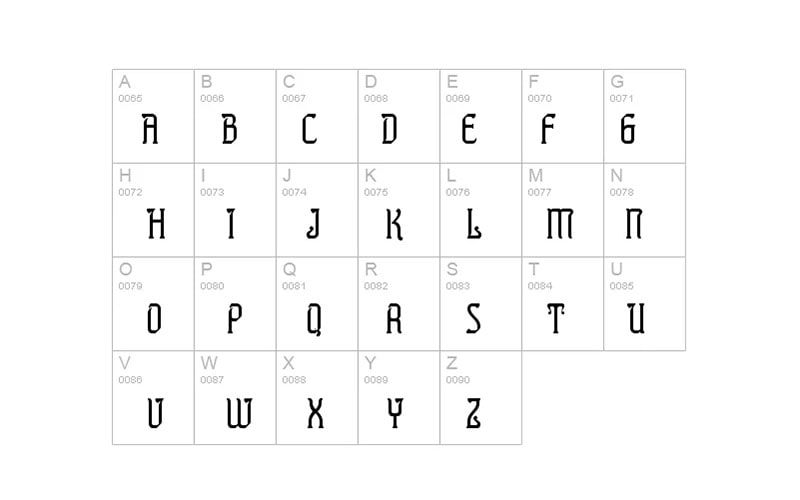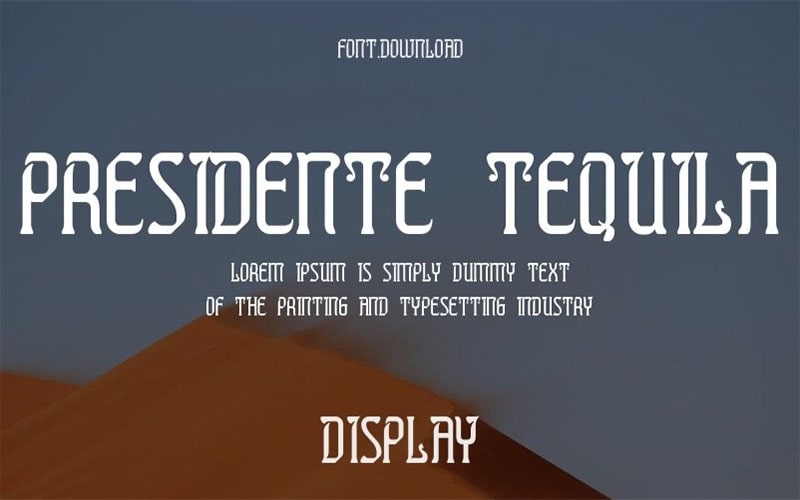
Presidente Tequila Font is an exquisite typeface that embodies sophistication and versatility, making it an ideal choice for a wide range of design applications.
It was designed by a talented typeface artist renowned for creating sophisticated and elegant fonts No Images Fonts.
The inspiration for Presidente Tequila Font comes from a blend of traditional and modern design elements, aiming to create a typeface that is both timeless and contemporary.
This Font family includes a variety of styles such as Presidente Tequila Regular, Presidente Tequila Bold, Presidente Tequila Italic, and Presidente Tequila Bold Italic to cater to different design needs.
The standard style is perfect for body text and general usage. It adds emphasis and weight, ideal for headings and important text. It provides a dynamic slant that is suitable for emphasis and stylistic variation.
Features a sophisticated and professional aesthetic, akin to Presidente Tequila Font’s elegant design Hamburger Heaven Font designed by Nicks Fonts, and the Cabaret Font designed by Alan Meeks.
Combines the weight of bold with the slant of italics, perfect for strong emphasis and standout text. This Font is an outstanding choice for designers seeking a typeface that combines elegance with versatility.